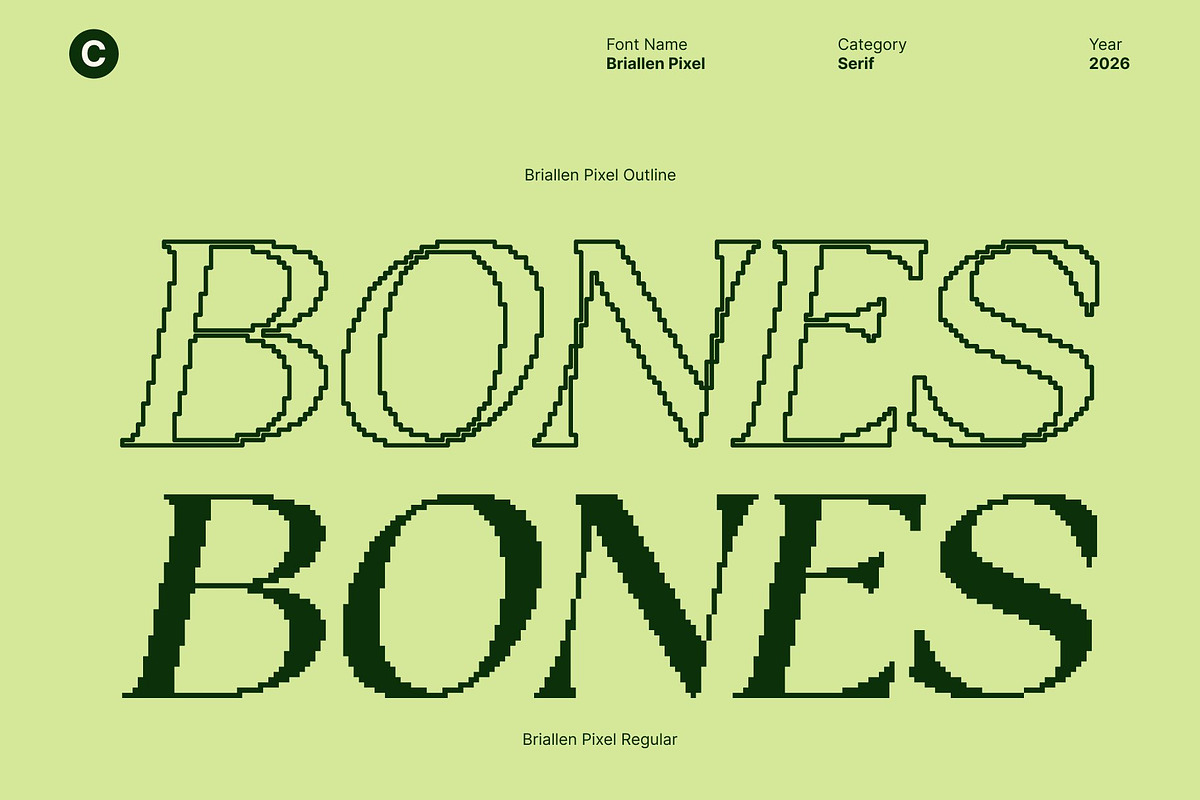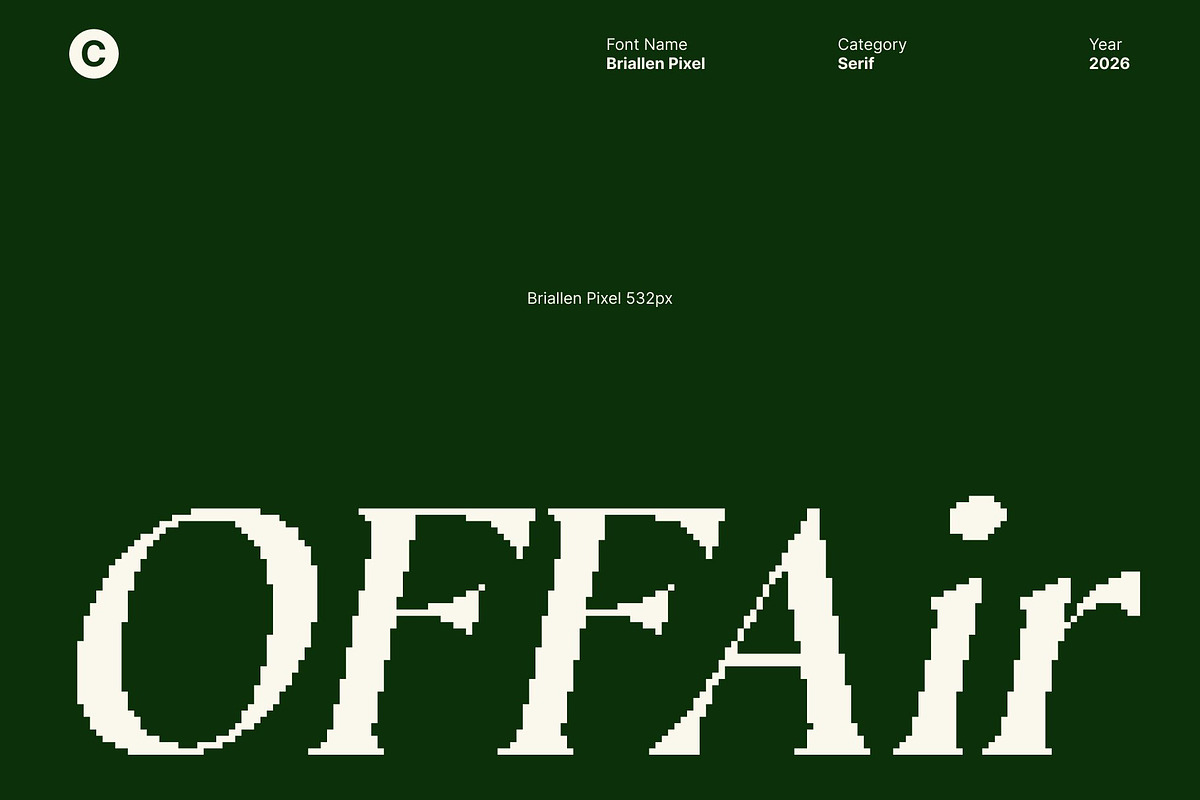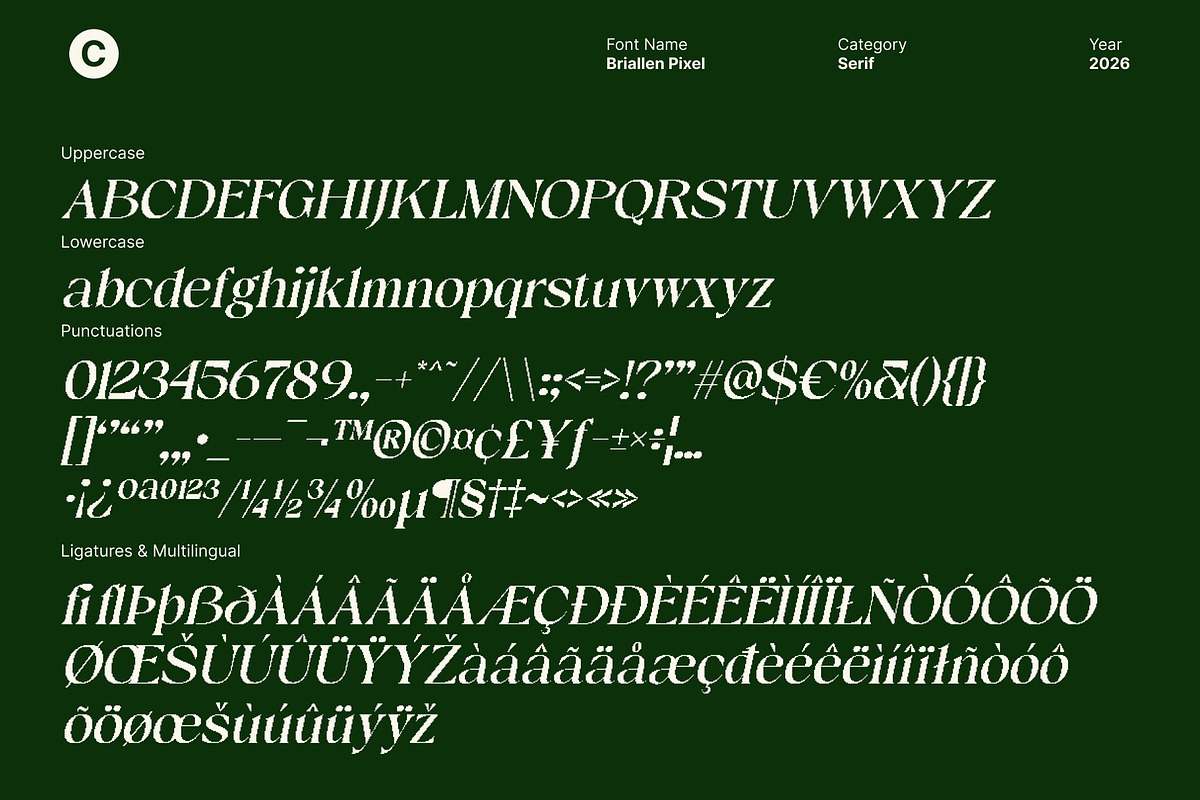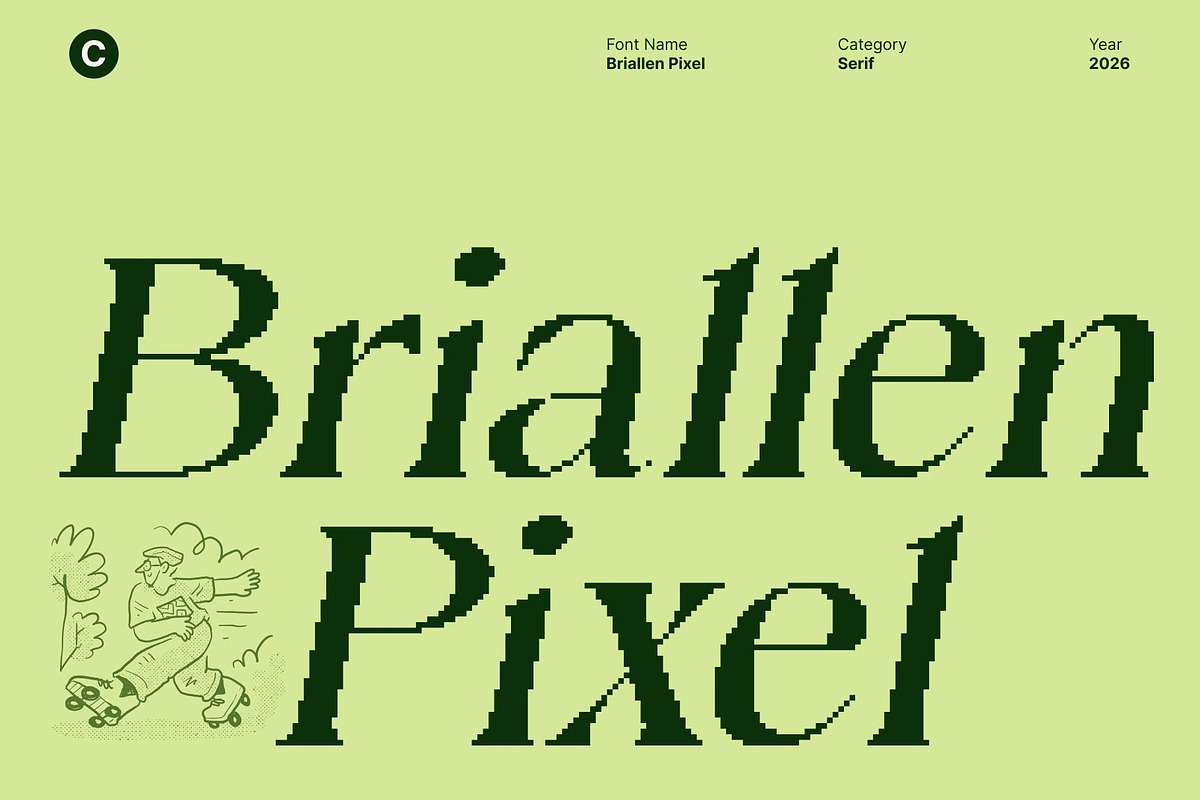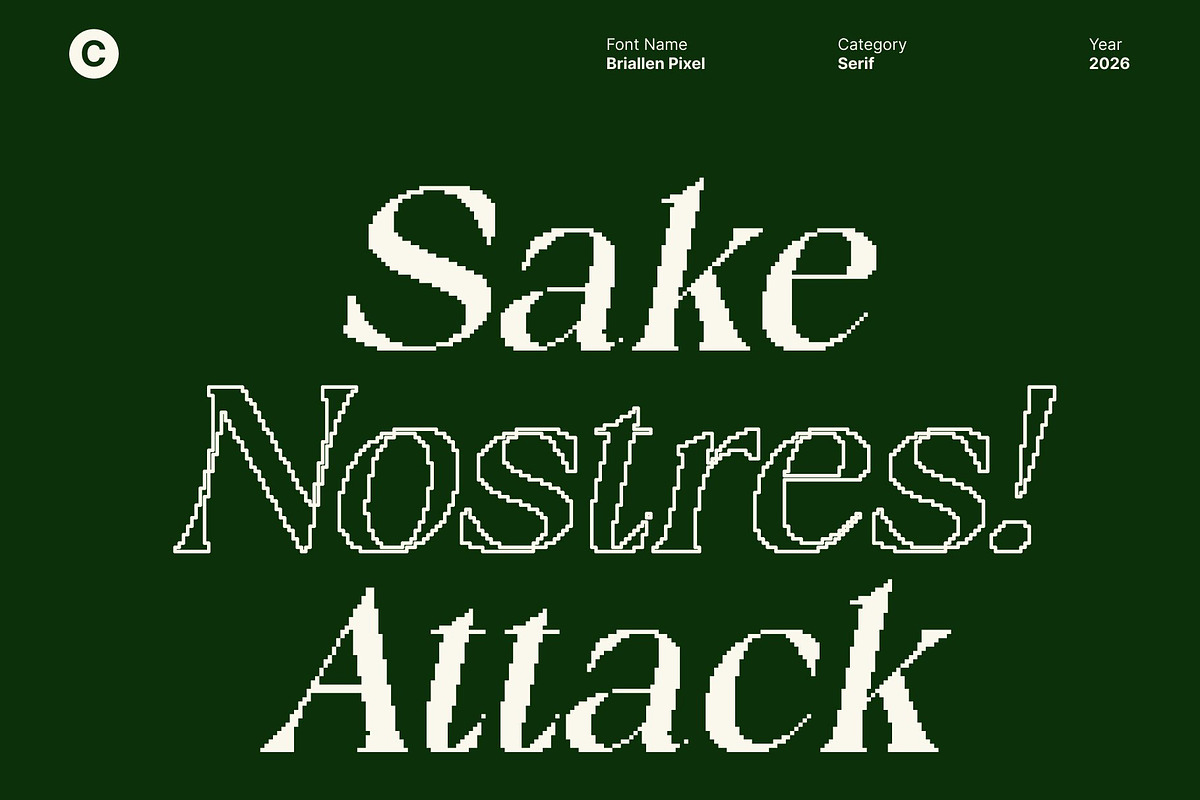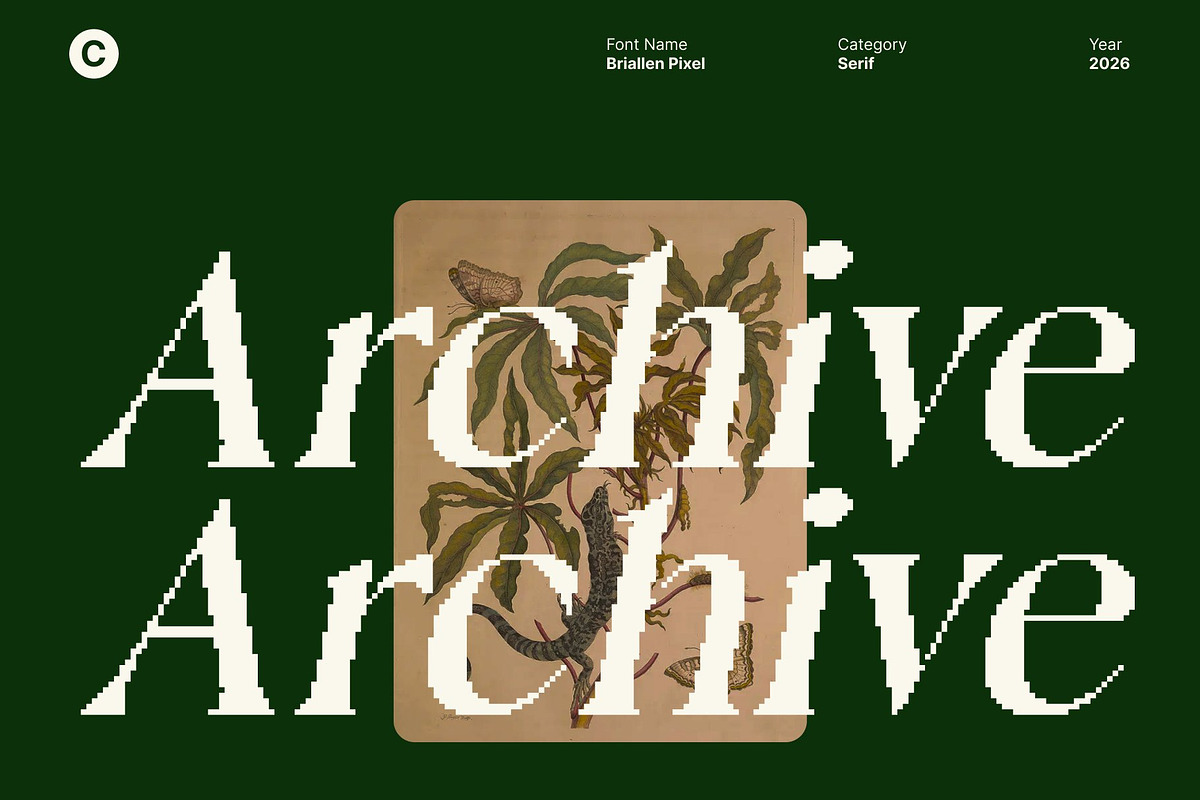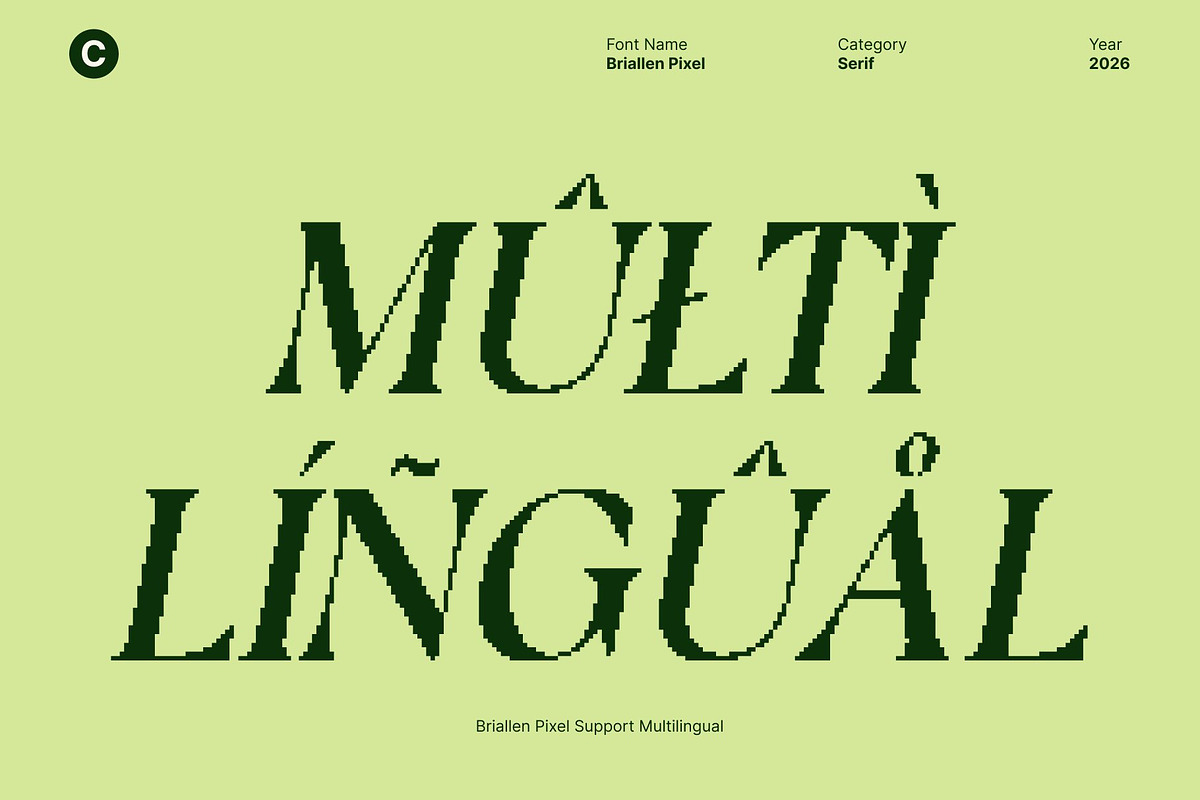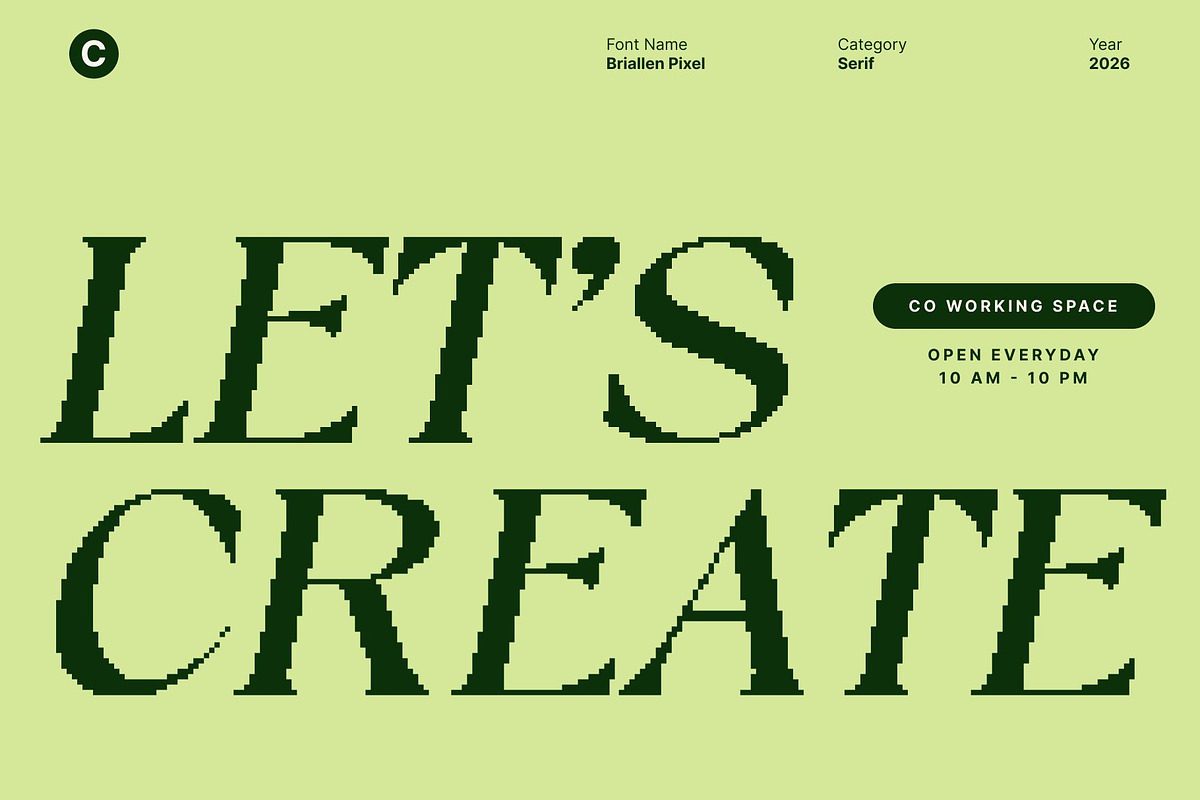
Briallen Pixel
Briallen Pixel – Elegant Font: Refined Sophistication for Professional Designs
Timeless Elegance with a Modern Edge This is a modern serif typeface that exudes elegance and class through its refined proportions and clean structure. While rooted in sophisticated serif traditions, its pixel-based construction introduces a subtle digital character, creating a contemporary balance between classic refinement and modern precision.
Ideal for Corporate Branding Designed for professional environments, this font enhances corporate branding with a polished and trustworthy appearance. It is perfectly suited for logos, business cards, brand identities, and marketing materials that require an elevated and sophisticated visual tone.
Elevating Editorial and Presentation Design This font brings clarity and elegance to presentations and editorial layouts. Its well-defined strokes and balanced contrast ensure strong readability while adding a premium feel, making it an excellent choice for reports, magazines, and high-end publications.
Versatile and Professional Adaptable across both digital and print media, this font offers versatility without sacrificing elegance. Whether used for headlines, body text, or display typography, it delivers a refined and professional presence, ideal for projects that demand sophistication, credibility, and timeless style.
Briallen Pixel Regular
Briallen Pixel Outline